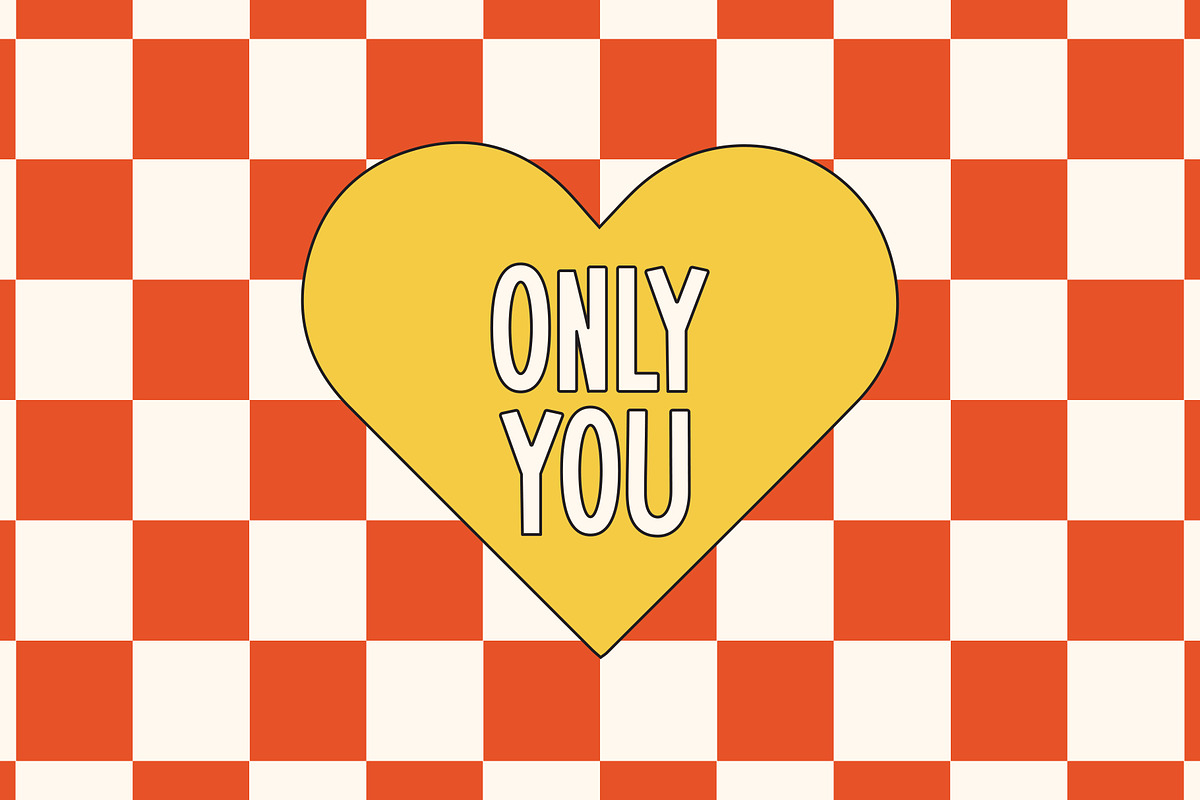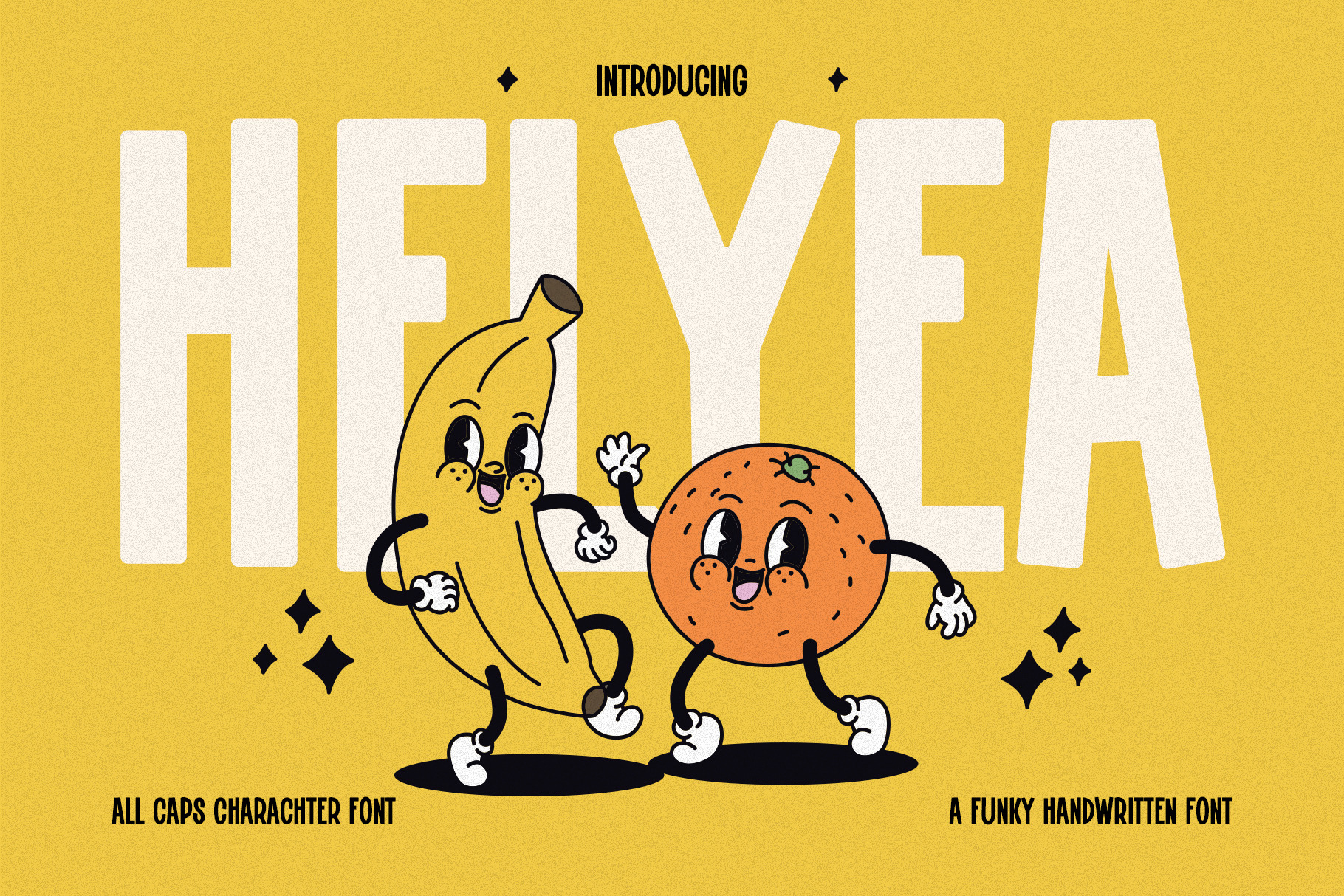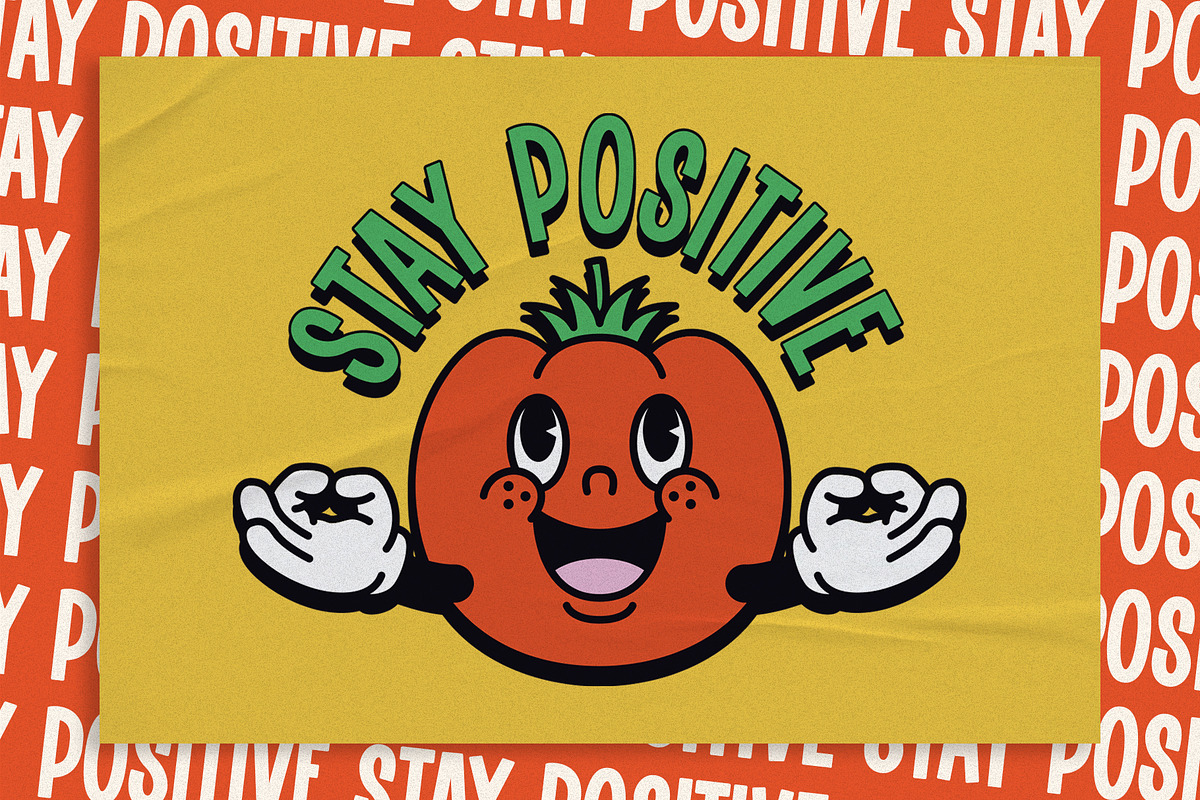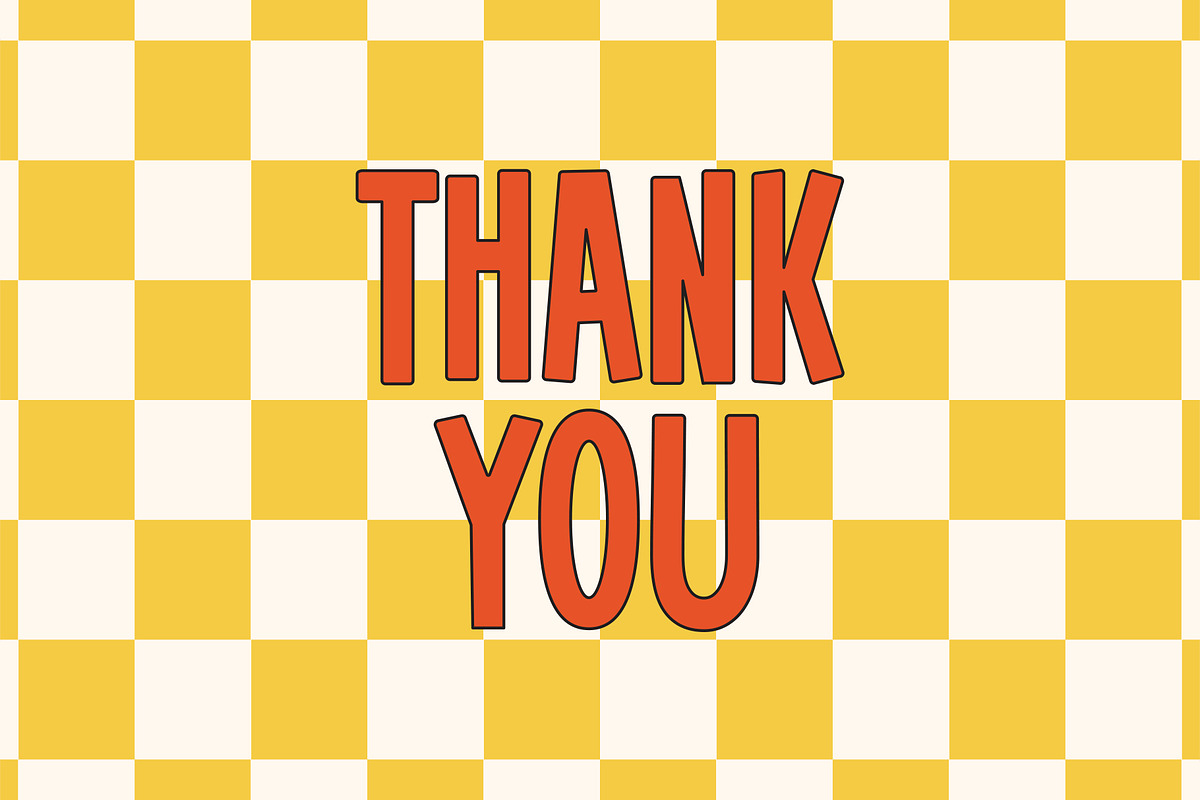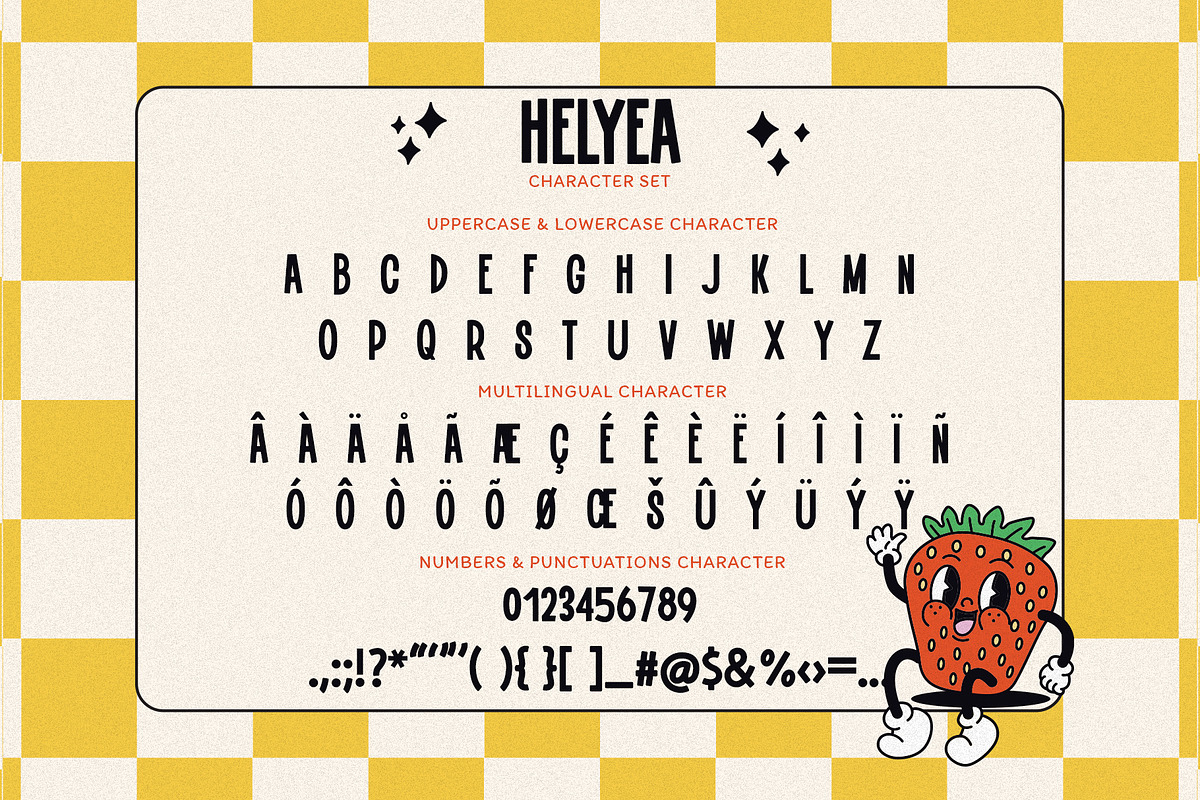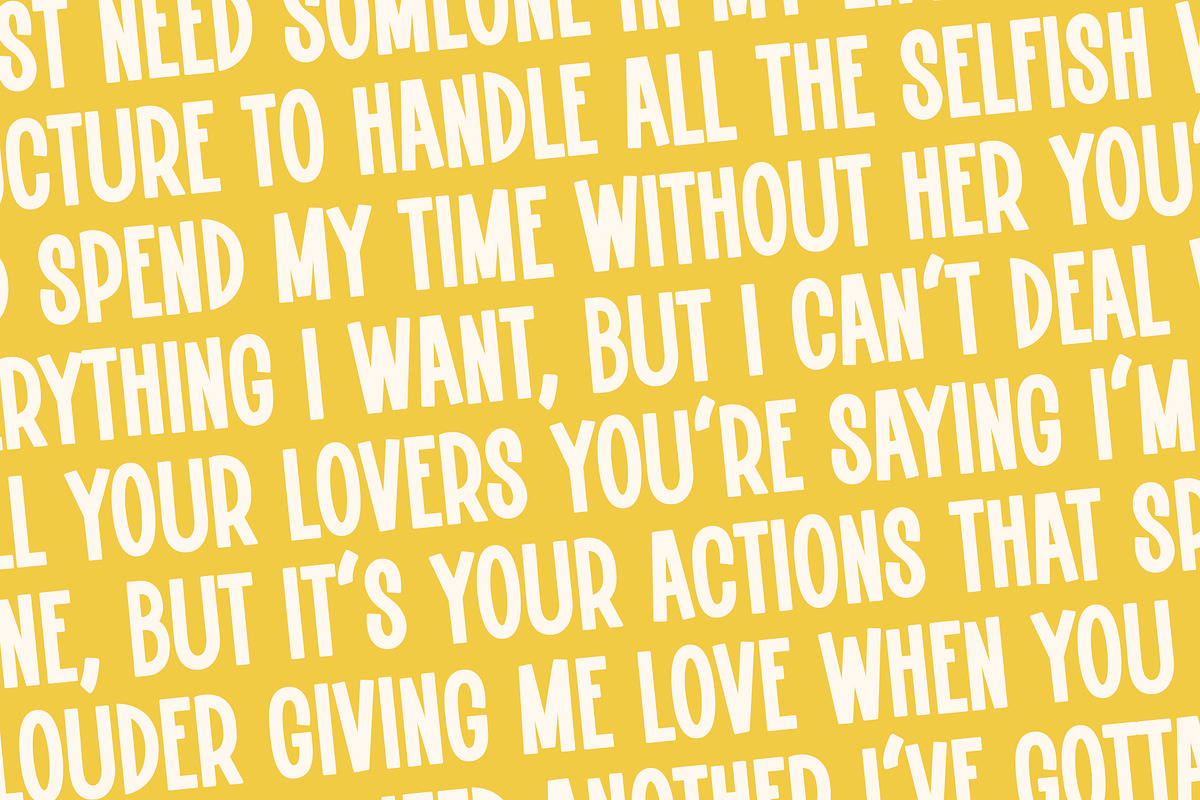
Helyea - Playful Font
Helyea is a fun and playful handwritten font that boasts a unique and whimsical style. The font features irregular letter shapes and a slightly slanted baseline, giving it a dynamic and animated appearance.
Helyea's handwritten style is perfect for adding a personal touch to any design project, such as invitations, greeting cards, posters, and more. This font's playful and informal style is sure to capture the attention of any viewer and add a touch of fun and joy to any design. Helyea is a versatile font that can be used in a variety of creative projects, making it a valuable addition to any designer's toolkit.